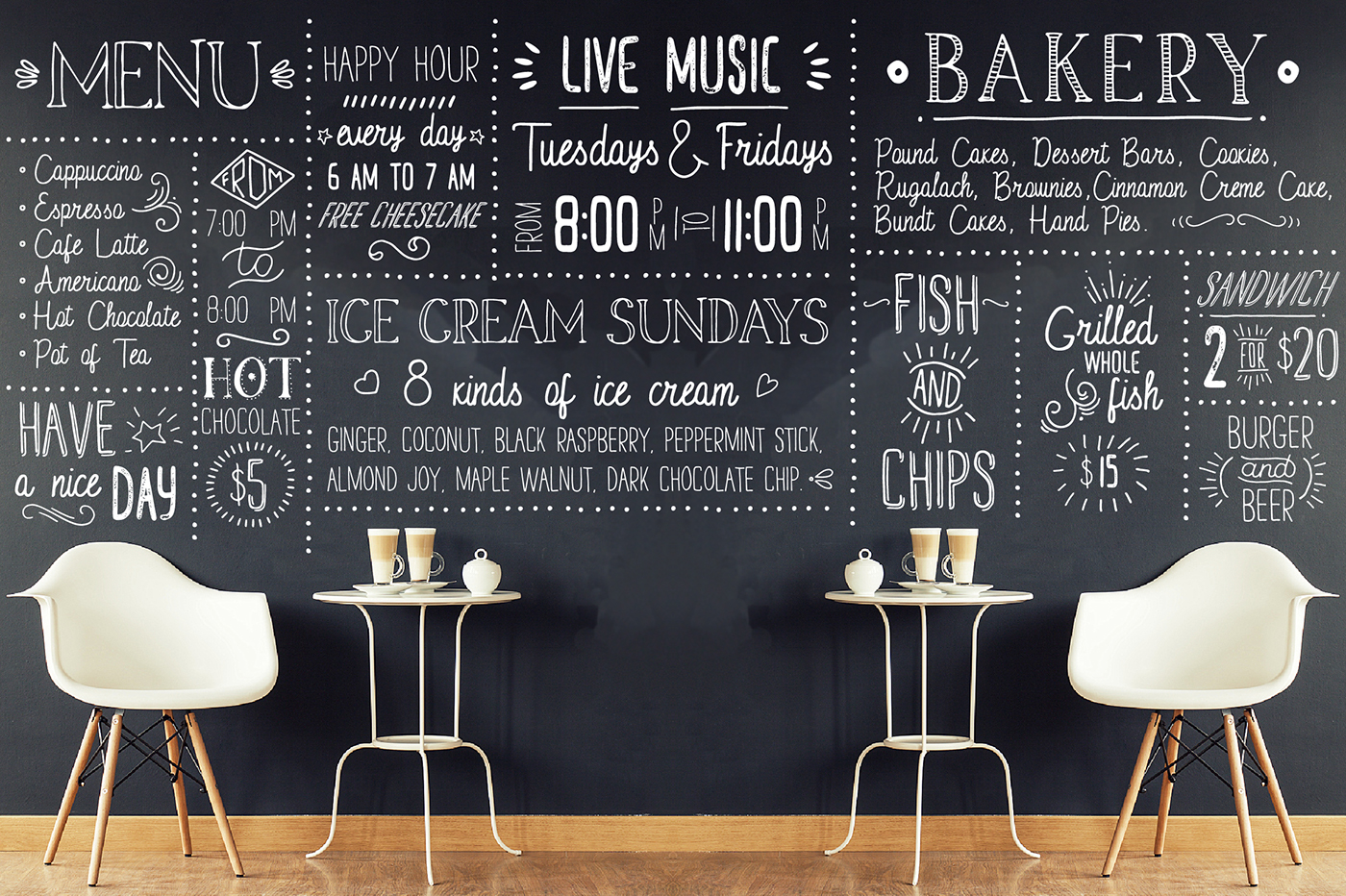
It's based on calligraphy and pretends to look like real lettering having almost 700 alternates and ligatures, organic forms and realistic connections.
Free Jonesy Script Regular Fonts. Please delete font after the review. It's based on calligraphy and pretends to look like real lettering having almost 700 alternates and ligatures, organic forms and realistic connections. Jonesy font family jonesy is a funny modern looking script with a touch of vintage. Free download jonesy for macos, windows, sketch, figma, photoshop and web site. You may download jonesy script regular typeface for free but for personal use only. You must link to gettyfonts.net after download jonesy script regular font. We have 172 free script, regular fonts to offer for direct downloading · 1001 fonts is your favorite site for free fonts since 2001. Free fonts, fonts, download free fonts, font lot. Script typefaces are based upon the varied and often fluid stroke created by handwriting, pretty much like the cursive fonts just typically more elegant. Jonesy is a funny modern looking script with a touch of vintage. It's based on calligraphy and pretends to look like real lettering having almost 700 alternates and ligatures, organic forms and realistic connections. We do not sell fonts and, in most cases, do not know where to buy them. For all questions regarding the purchase and use of fonts in your projects, please contact their respective owners. Jonesy is a funny modern looking script with a touch of vintage. Jonesy script regular download free in category basic, more fonts.
Рукописные шрифты handwritten, script fonts. Jonesy is good for menu, packaging, posters and as a starting point for lettering and. Script typefaces are based upon the varied and often fluid stroke created by handwriting, pretty much like the cursive fonts just typically more elegant. Script typefaces are based upon the varied and often fluid stroke created by handwriting, pretty much like the cursive fonts just typically more elegant. Jonesy is a funny modern looking script with a touch of vintage. We do not sell fonts and, in most cases, do not know where to buy them. It's based on calligraphy and pretends to look like real lettering having almost 700 alternates and ligatures, organic forms and realistic connections. Download 10,000 fonts with one click for $19.95. You may download jonesy script regular typeface for free but for personal use only. Jonesy is a funny modern looking script with a touch of vintage. Browse by alphabetical listing, by style, by author or by popularity. It's is modern bold script. They are organized into highly regular formal types similar to cursive writing and looser, more casual scripts. Google fonts now supports variable fonts. Dream orphans by typodermic fonts. Free fonts, fonts, download free fonts, font lot. The editorial at dafont search for the best free fonts available to download from the web. Please delete font after the review. Desktop, webfont, app, epub, server released: This is a beautiful boldscript font which personal touch of natural movement. It's based on calligraphy and pretends to look like real lettering having almost 700 alternates and fonts include multilingual support. Free download jonesy for macos, windows, sketch, figma, photoshop and web site. Script font is a broad style that refers to any typeface that looks like it was drawn by hand. Archive of freely downloadable fonts. Jonesy script regular download free in category basic, more fonts. We have 172 free script, regular fonts to offer for direct downloading · 1001 fonts is your favorite site for free fonts since 2001. Be premium now download fast. It's based on calligraphy and pretends to look like real lettering please don't waste your time looking for a free download of jonesy. Aston script pro à € by teuku riski firmana. Script fonts are flowing stroke letters based upon handwriting or calligraphy. Jonesy is a funny modern looking script with a touch of vintage.
Handwritten Font Collection Befonts Com. For all questions regarding the purchase and use of fonts in your projects, please contact their respective owners. Please delete font after the review. It's based on calligraphy and pretends to look like real lettering having almost 700 alternates and ligatures, organic forms and realistic connections. You must link to gettyfonts.net after download jonesy script regular font. Jonesy is a funny modern looking script with a touch of vintage. It's based on calligraphy and pretends to look like real lettering having almost 700 alternates and ligatures, organic forms and realistic connections. We have 172 free script, regular fonts to offer for direct downloading · 1001 fonts is your favorite site for free fonts since 2001. Jonesy script regular download free in category basic, more fonts. You may download jonesy script regular typeface for free but for personal use only. Free download jonesy for macos, windows, sketch, figma, photoshop and web site. Script typefaces are based upon the varied and often fluid stroke created by handwriting, pretty much like the cursive fonts just typically more elegant. Jonesy font family jonesy is a funny modern looking script with a touch of vintage. Jonesy is a funny modern looking script with a touch of vintage. Free fonts, fonts, download free fonts, font lot. We do not sell fonts and, in most cases, do not know where to buy them.
It's based on calligraphy and pretends to look like real lettering please don't waste your time looking for a free download of jonesy.
Jonesy Fonts Free Download Onlinewebfonts Com. It's based on calligraphy and pretends to look like real lettering having almost 700 alternates and ligatures, organic forms and realistic connections. It's based on calligraphy and pretends to look like real lettering having almost 700 alternates and ligatures, organic forms and realistic connections. Jonesy font family jonesy is a funny modern looking script with a touch of vintage. Free download jonesy for macos, windows, sketch, figma, photoshop and web site. Please delete font after the review. You may download jonesy script regular typeface for free but for personal use only. For all questions regarding the purchase and use of fonts in your projects, please contact their respective owners. Jonesy is a funny modern looking script with a touch of vintage. We have 172 free script, regular fonts to offer for direct downloading · 1001 fonts is your favorite site for free fonts since 2001. We do not sell fonts and, in most cases, do not know where to buy them. Jonesy is a funny modern looking script with a touch of vintage. Script typefaces are based upon the varied and often fluid stroke created by handwriting, pretty much like the cursive fonts just typically more elegant. You must link to gettyfonts.net after download jonesy script regular font. Jonesy script regular download free in category basic, more fonts. Free fonts, fonts, download free fonts, font lot.
Jonesy Font Family Ifonts Xyz. Jonesy script regular download free in category basic, more fonts. Jonesy font family jonesy is a funny modern looking script with a touch of vintage. Script typefaces are based upon the varied and often fluid stroke created by handwriting, pretty much like the cursive fonts just typically more elegant. We have 172 free script, regular fonts to offer for direct downloading · 1001 fonts is your favorite site for free fonts since 2001. Jonesy is a funny modern looking script with a touch of vintage. Jonesy is a funny modern looking script with a touch of vintage. Free download jonesy for macos, windows, sketch, figma, photoshop and web site. We do not sell fonts and, in most cases, do not know where to buy them. You must link to gettyfonts.net after download jonesy script regular font. It's based on calligraphy and pretends to look like real lettering having almost 700 alternates and ligatures, organic forms and realistic connections. You may download jonesy script regular typeface for free but for personal use only. For all questions regarding the purchase and use of fonts in your projects, please contact their respective owners. Please delete font after the review. Free fonts, fonts, download free fonts, font lot. It's based on calligraphy and pretends to look like real lettering having almost 700 alternates and ligatures, organic forms and realistic connections.
Jonesy Font Family Ifonts Xyz. You may download jonesy script regular typeface for free but for personal use only. You must link to gettyfonts.net after download jonesy script regular font. For all questions regarding the purchase and use of fonts in your projects, please contact their respective owners. Jonesy is a funny modern looking script with a touch of vintage. It's based on calligraphy and pretends to look like real lettering having almost 700 alternates and ligatures, organic forms and realistic connections. Jonesy script regular download free in category basic, more fonts. It's based on calligraphy and pretends to look like real lettering having almost 700 alternates and ligatures, organic forms and realistic connections. Free download jonesy for macos, windows, sketch, figma, photoshop and web site. We have 172 free script, regular fonts to offer for direct downloading · 1001 fonts is your favorite site for free fonts since 2001. Free fonts, fonts, download free fonts, font lot. Please delete font after the review. Jonesy is a funny modern looking script with a touch of vintage. Jonesy font family jonesy is a funny modern looking script with a touch of vintage. We do not sell fonts and, in most cases, do not know where to buy them. Script typefaces are based upon the varied and often fluid stroke created by handwriting, pretty much like the cursive fonts just typically more elegant.
Jonesy Fonts Free Download Onlinewebfonts Com. Free download jonesy for macos, windows, sketch, figma, photoshop and web site. Jonesy font family jonesy is a funny modern looking script with a touch of vintage. It's based on calligraphy and pretends to look like real lettering having almost 700 alternates and ligatures, organic forms and realistic connections. Jonesy is a funny modern looking script with a touch of vintage. For all questions regarding the purchase and use of fonts in your projects, please contact their respective owners. Script typefaces are based upon the varied and often fluid stroke created by handwriting, pretty much like the cursive fonts just typically more elegant. It's based on calligraphy and pretends to look like real lettering having almost 700 alternates and ligatures, organic forms and realistic connections. You may download jonesy script regular typeface for free but for personal use only. Jonesy is a funny modern looking script with a touch of vintage. Please delete font after the review. You must link to gettyfonts.net after download jonesy script regular font. We have 172 free script, regular fonts to offer for direct downloading · 1001 fonts is your favorite site for free fonts since 2001. We do not sell fonts and, in most cases, do not know where to buy them. Free fonts, fonts, download free fonts, font lot. Jonesy script regular download free in category basic, more fonts.